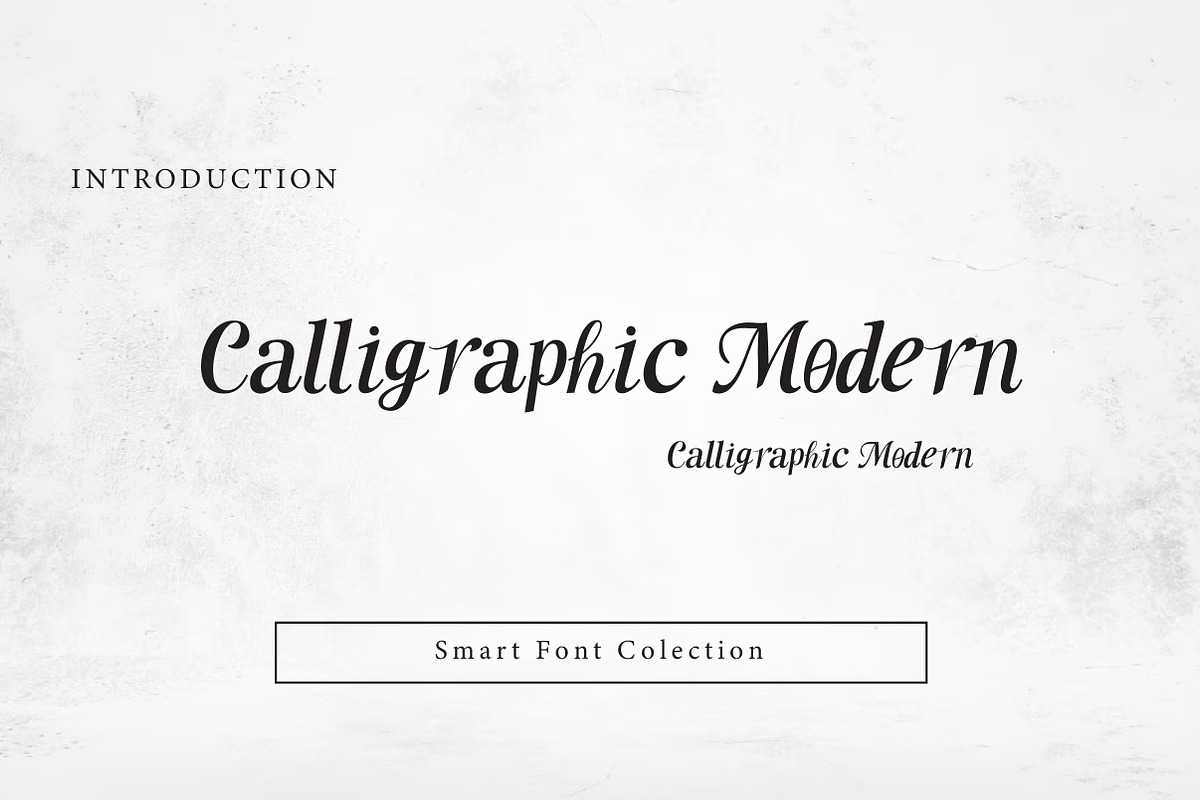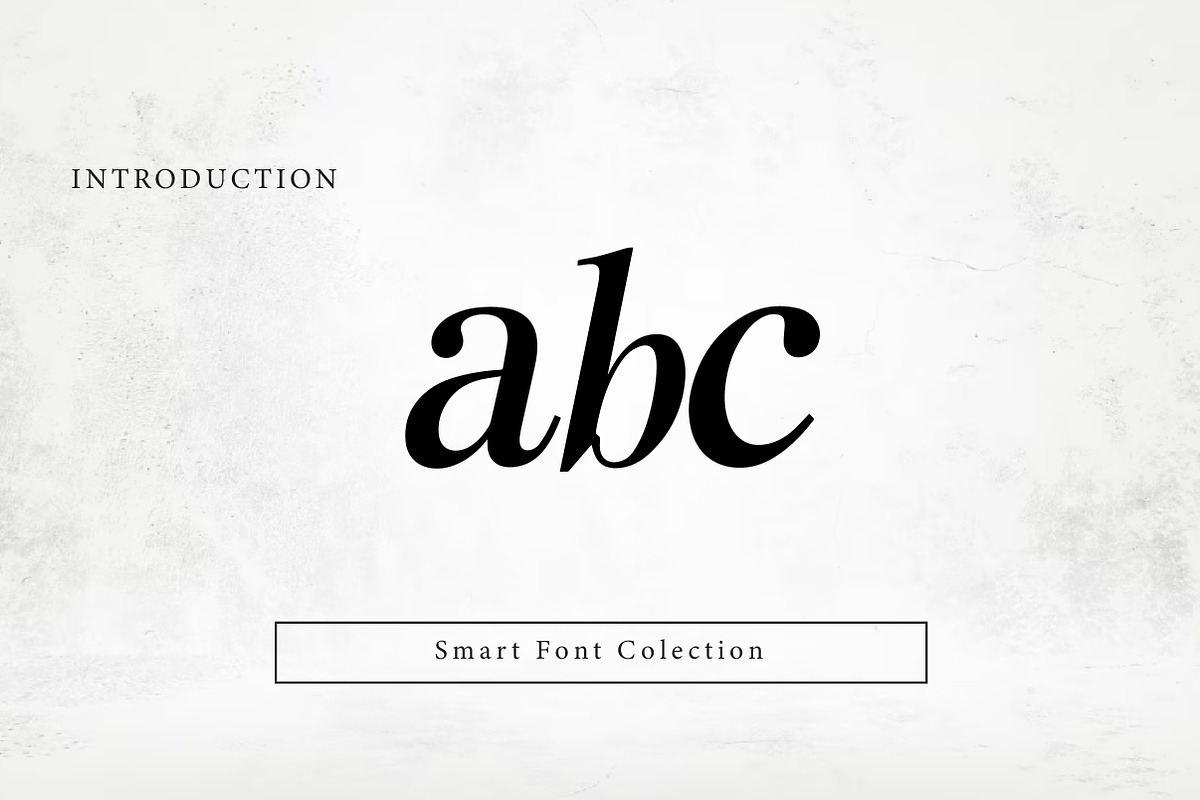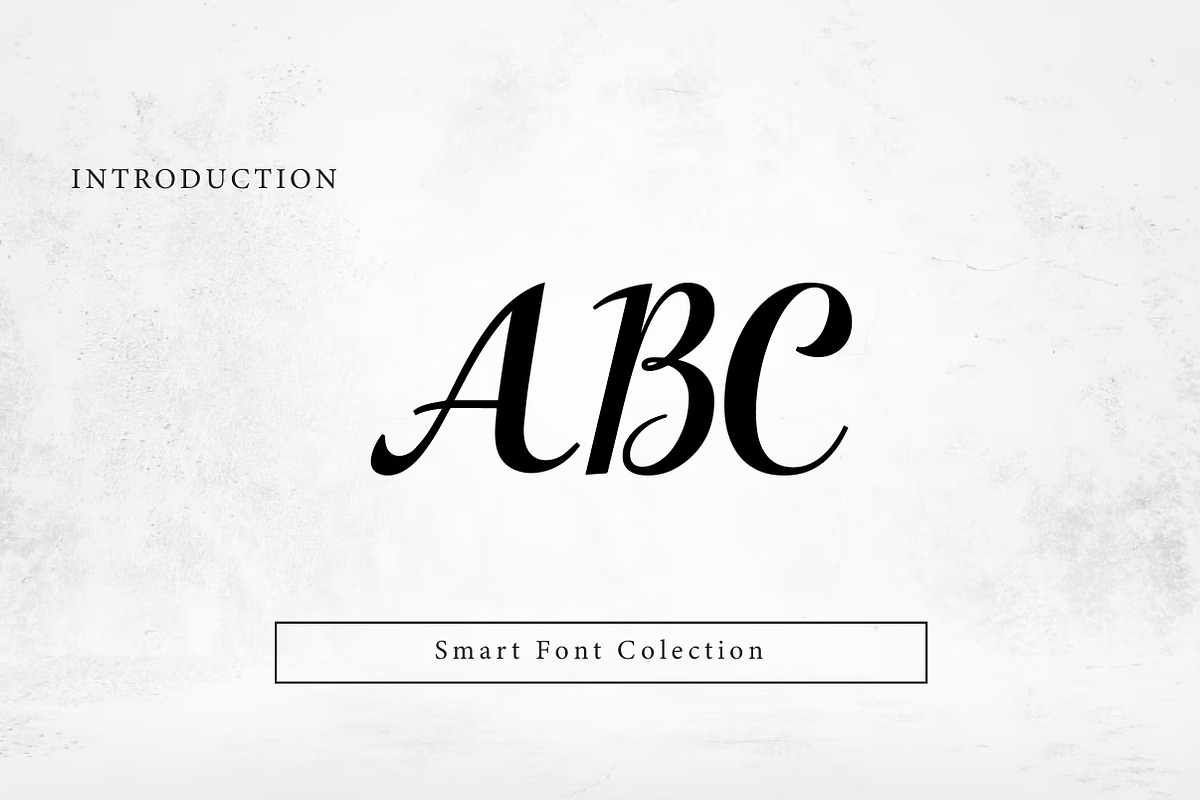
Calligraphic Modern
Calligraphic Modern is a refined and contemporary calligraphy-inspired typeface that blends classic handwritten elegance with a modern design sensibility. Its smooth strokes, flowing curves, and balanced letterforms create a graceful yet confident appearance. The font is designed to feel expressive and stylish while remaining readable and versatile. Calligraphic Modern is ideal for branding, logos, invitations, quotes, editorial headlines, packaging, fashion designs, and creative digital projects that require a modern, artistic touch.